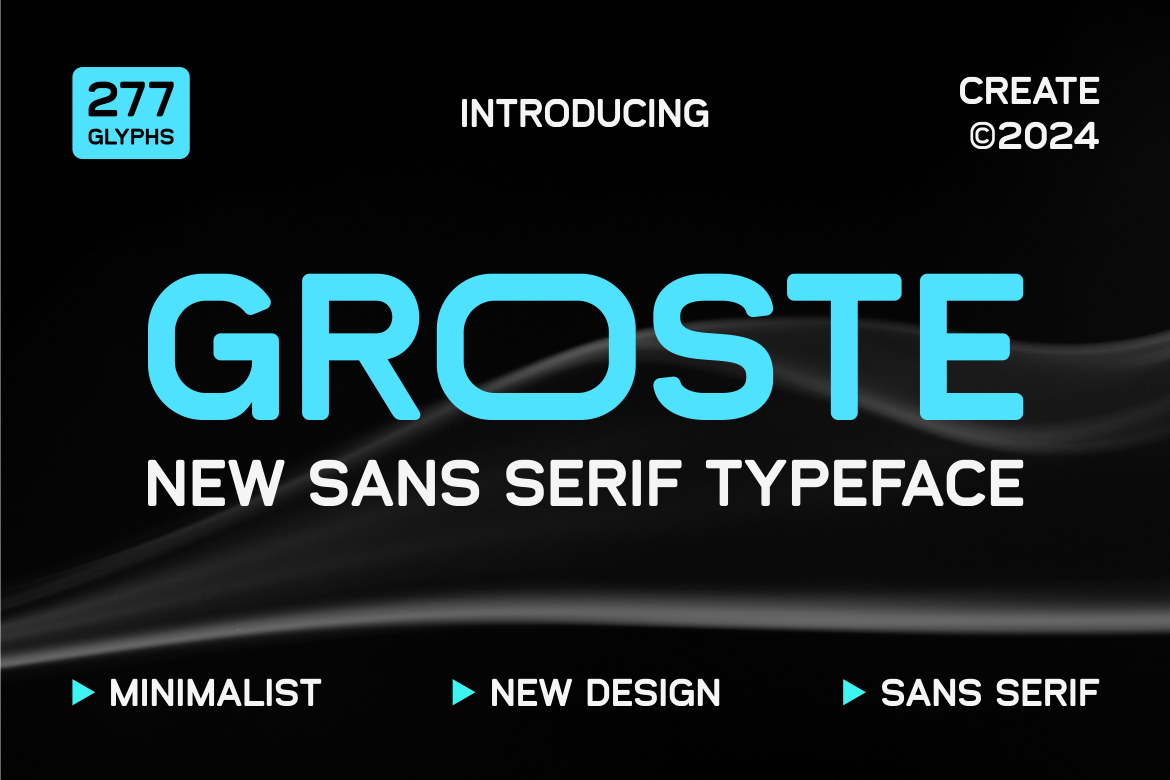
Groste - Sans Serif Typeface
Introducing our new product Groste - Sans Serif Typeface
Groste - Sans Serif Typeface is a bold and authentic display font. The font is suitable for any branding project like logo, Template Design, esport, and many more. outstanding in a wide range of contexts.